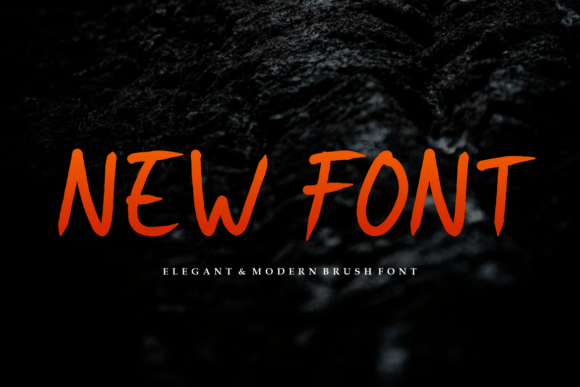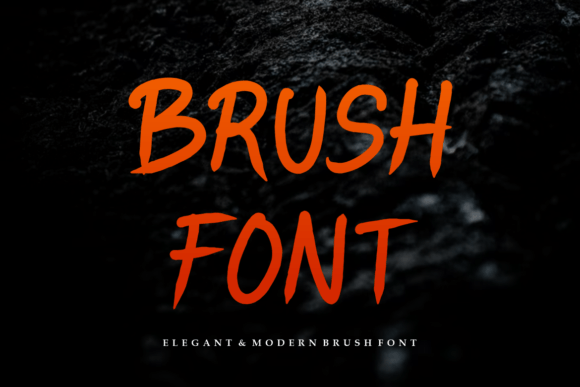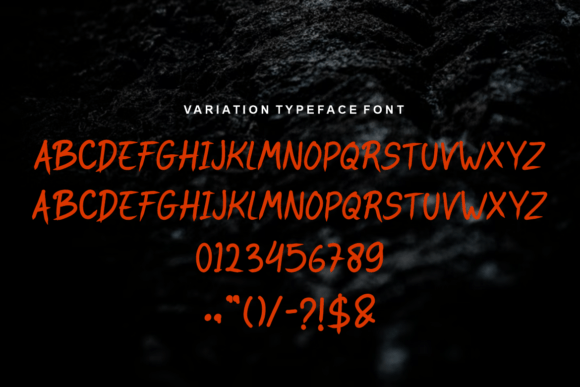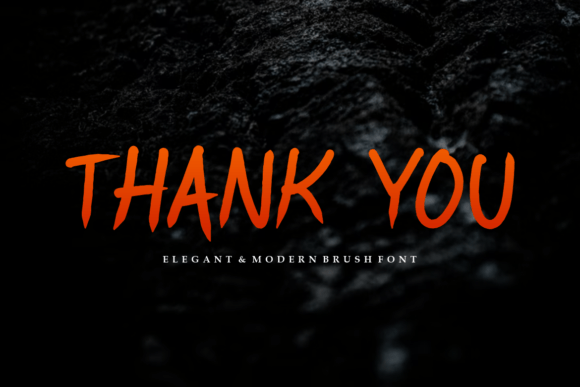
Introduction to Signgok Font
Have you ever found yourself stuck in the middle of a creative project, desperately searching for the perfect design resource to bring your vision to life? That’s exactly what happened to me last week, when I was working on a branding campaign for a local business. I needed a font that was both bold and elegant, yet easy to read and understand. After hours of browsing through various design websites, I stumbled upon the Signgok Font – and everything changed.
With its fresh and casual handwritten style, the Signgok Font is a game-changer for designers looking for a high-quality font to elevate their creative project. Its transparent background and high-quality design make it perfect for any design task, from logo creation to social media graphics.
Key Features of Signgok Font
- Unique and creative font design, ideal for various creative projects.
- Signgok Font is designed to be scalable, with a large character set and detailed resolution of 300 DPI.
- Perfect design resource for graphic designers, digital artists, and anyone looking for a unique font.
- Supports various languages, making it a versatile font for international creative projects.
Honest Review: Signgok Font
As a designer, I’m always on the lookout for high-quality design resources to enhance my creative projects. Recently, I had the chance to try out the Signgok Font, and I must say it’s been a great addition to my design arsenal.
- ✨ The Signgok Font offers a wide range of elegant and stylish lettering options, perfect for designing logos, branding materials, and even digital displays.
- ✨ The transparent background feature allows for seamless integration with any background, giving me more flexibility in my design work.
- ⚠️ While the font is great for most design projects, I found it to be somewhat limited in its versatility, especially when it comes to creating complex or abstract designs.
- ⚠️ The font’s style, although elegant, can come across as somewhat generic, which may not be ideal for designers looking to create unique or avant-garde designs.
Overall, I’d say the Signgok Font is a solid addition to any designer’s toolkit. While it may have its limitations, its high-quality design and ease of use make it an excellent resource for designers working on a variety of creative projects.
To maximize the potential of Signgok Font, experiment with different font sizes, colors, and styles. Combine it with other design elements to create a unique and eye-catching design. You can also use it to create a consistent brand identity across various platforms.
Signgok Font is ideal for various creative projects such as logo design, infographics, and social media graphics. Its versatility and high-quality design make it a popular choice among designers and non-designers alike.
Montserrat Font is a high-quality sans-serif font that is ideal for creative projects, such as logos, brochures, and websites. It is available for free download and features a transparent background, making it perfect for designs that require a clean and minimalist look.
When to use: Use Montserrat Font for modern and urban-themed designs, such as cityscapes, technology, and sports. It compares to Signgok Font in its clean and minimalist design, but Montserrat Font has a more geometric and structured feel.
Great Vibes Font is a beautiful and elegant script font that is perfect for creative projects, such as invitations, posters, and social media graphics. It is available for free download and features a transparent background, making it ideal for designs that require a touch of sophistication and elegance.